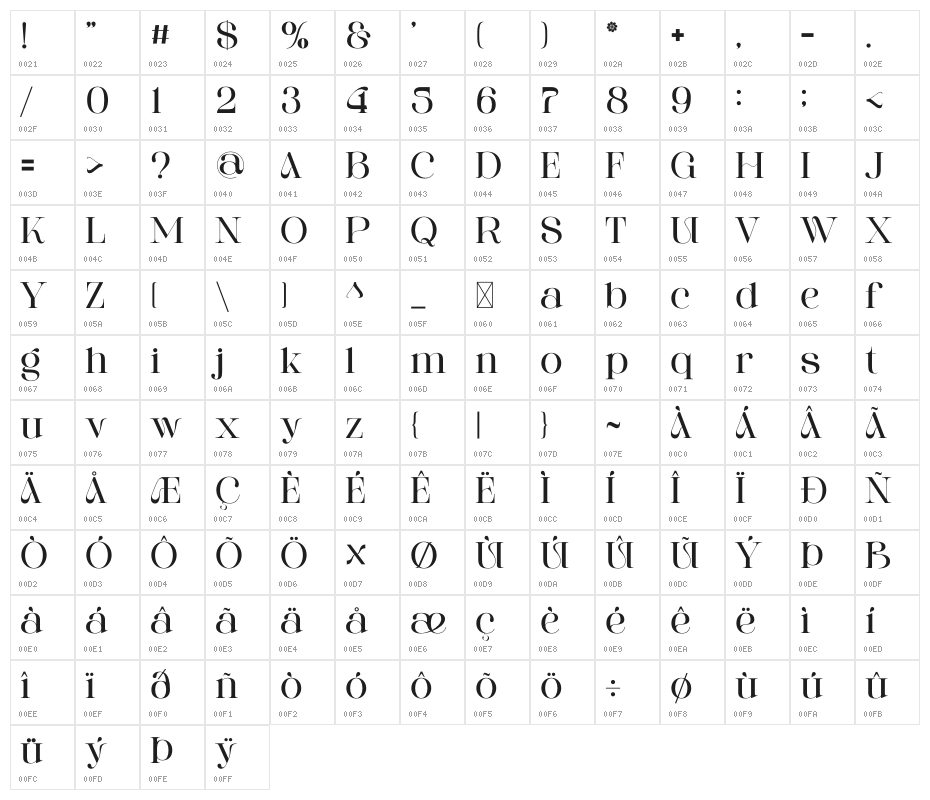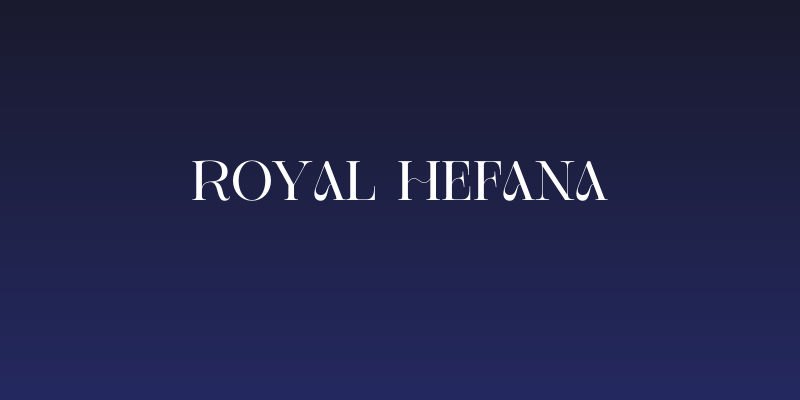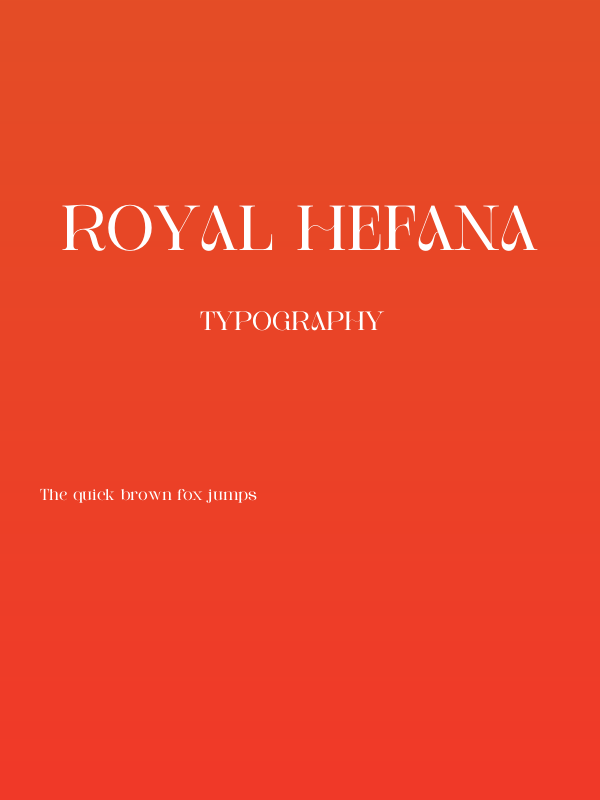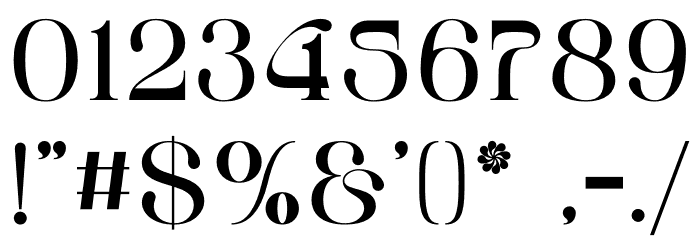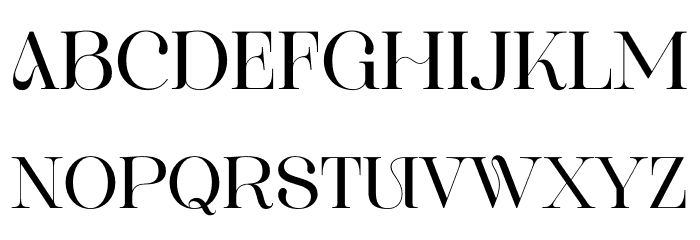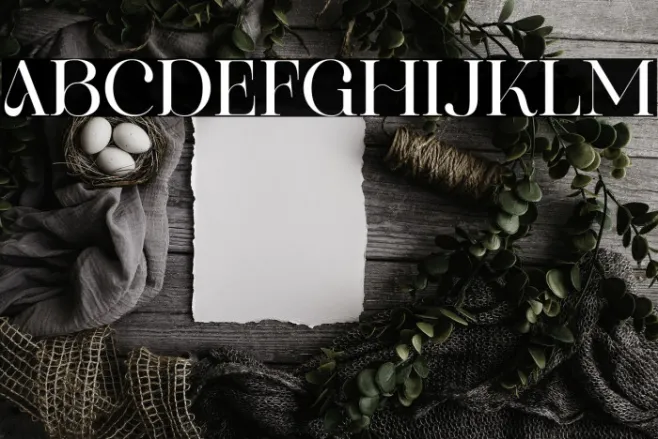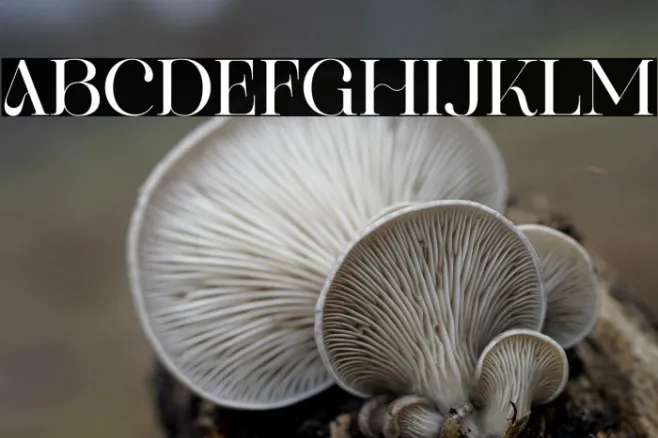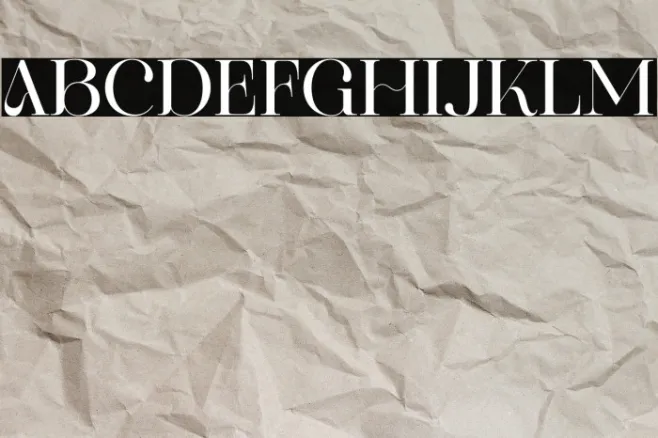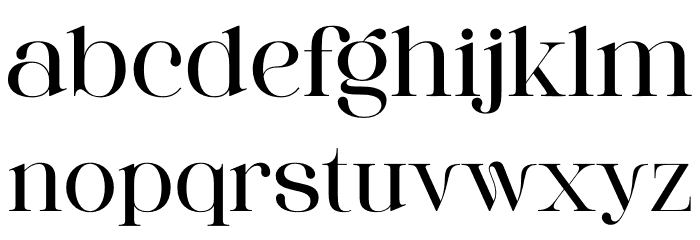
ROYAL Hefana Font
ROYAL Hefana Description
This font features a sophisticated and elegant design with a high contrast between thick and thin strokes, giving it a refined and classic appearance. The serifs are pronounced and add a touch of formality, while the overall structure maintains a sense of balance and harmony. The uppercase letters are bold and commanding, while the lowercase letters are more delicate, providing a nice contrast. The numerals are distinct and clear, making them easily readable. Special characters are well-integrated into the design, maintaining the font's cohesive aesthetic.
| Proposed Projects | Ideal for luxury branding, editorial design, wedding invitations, and high-end product packaging. |